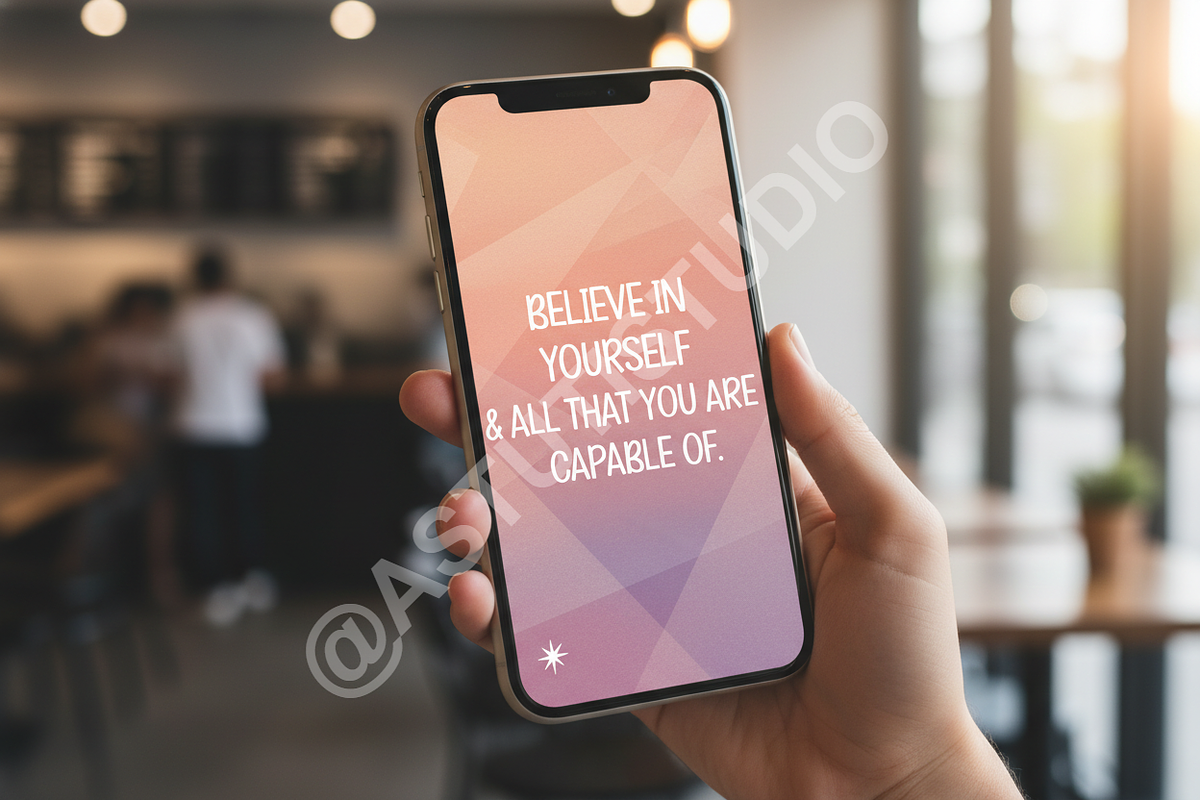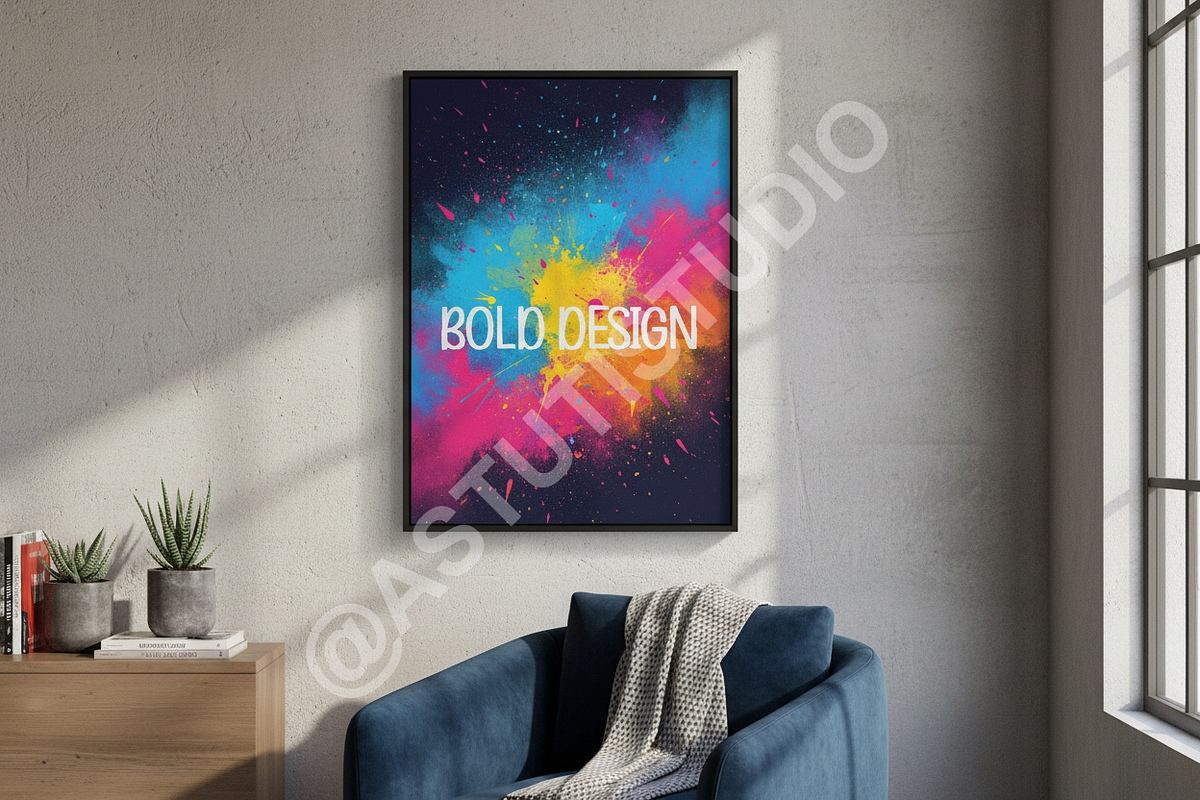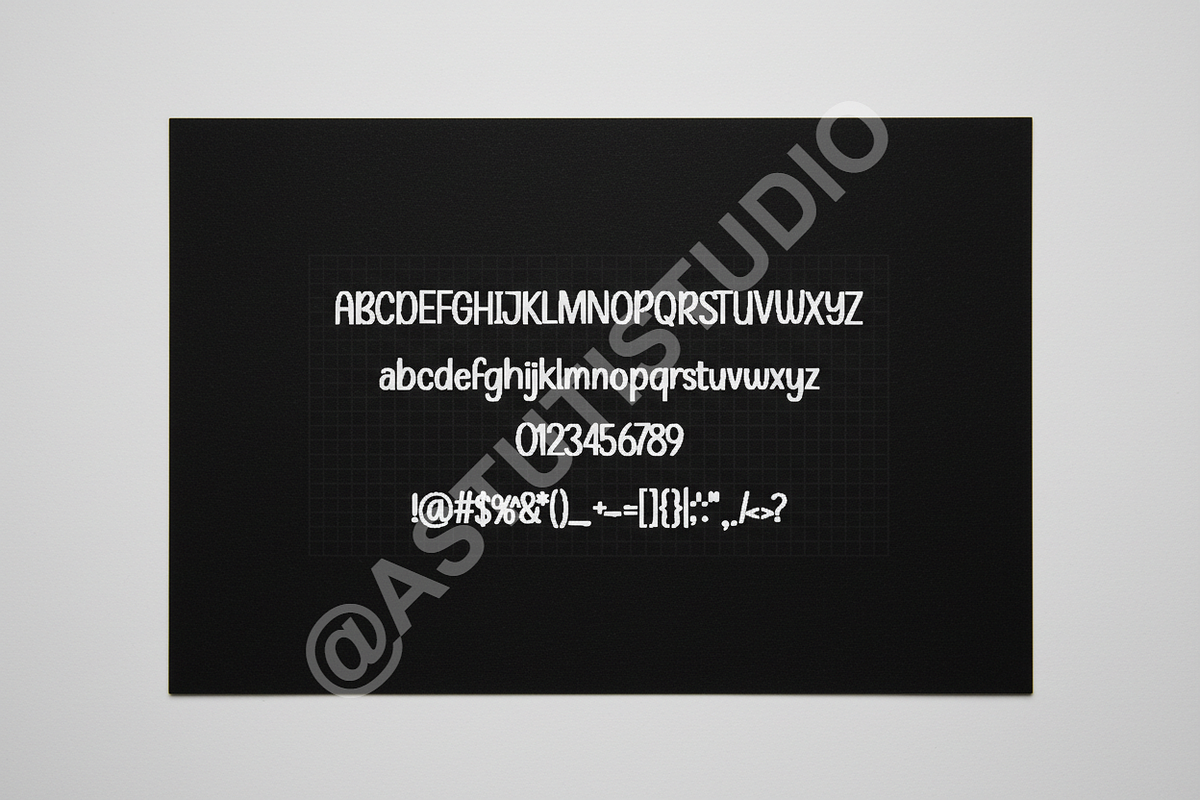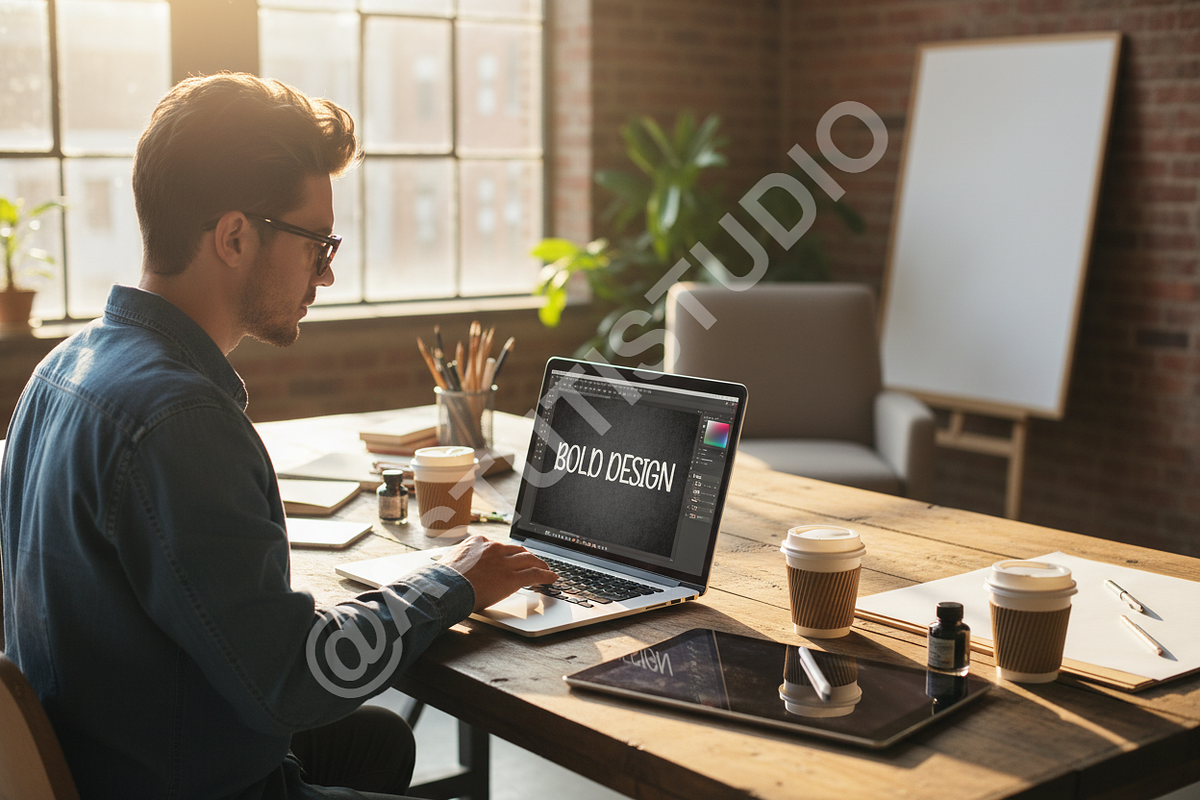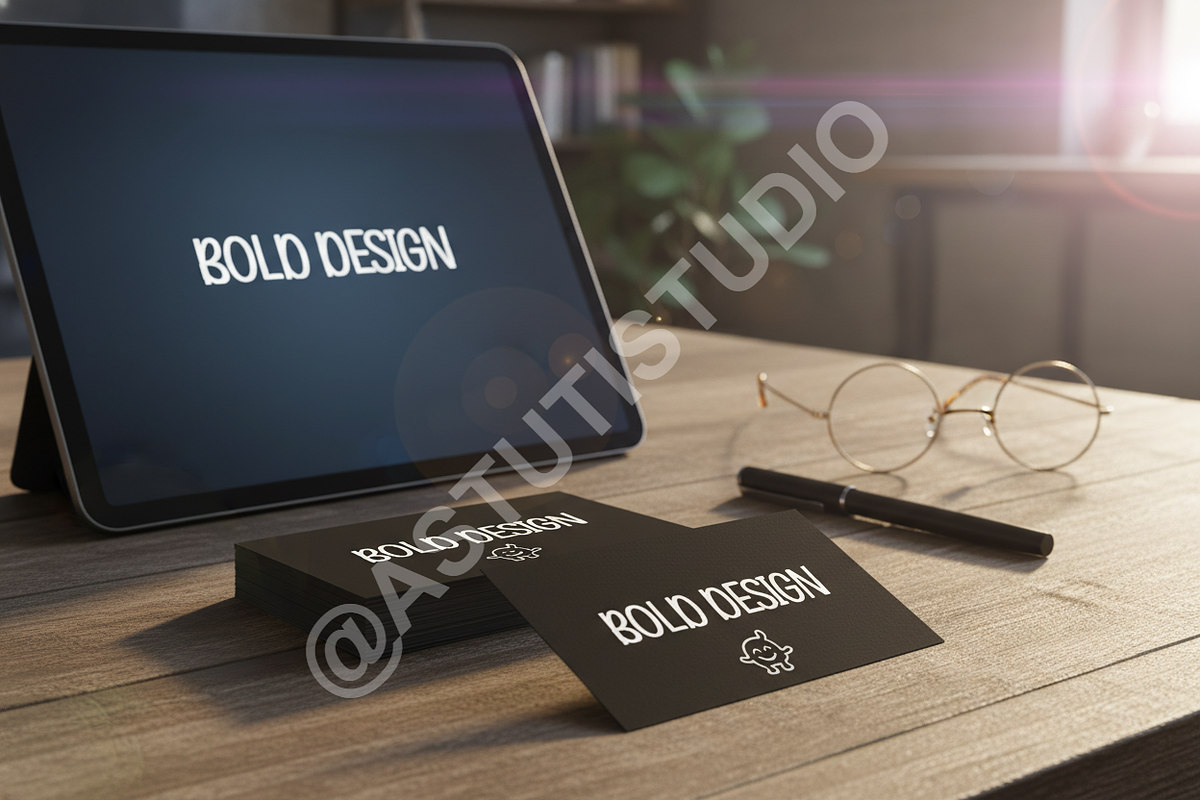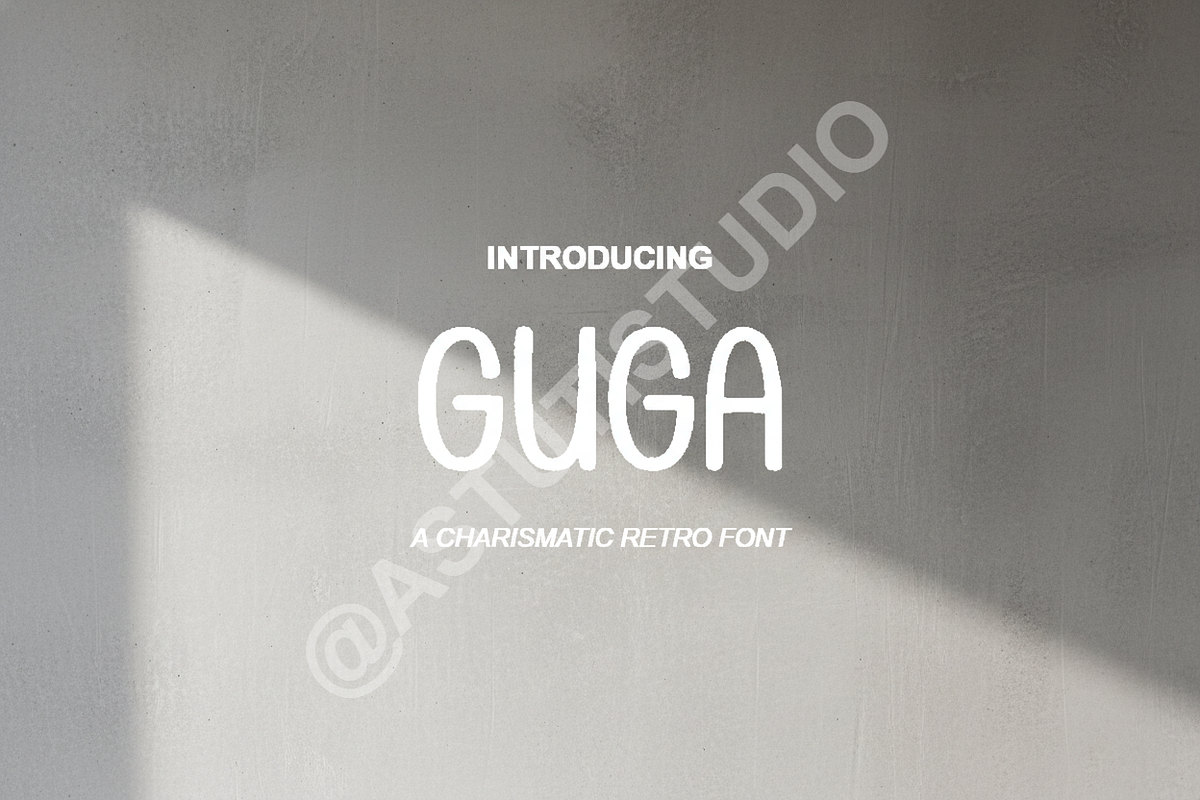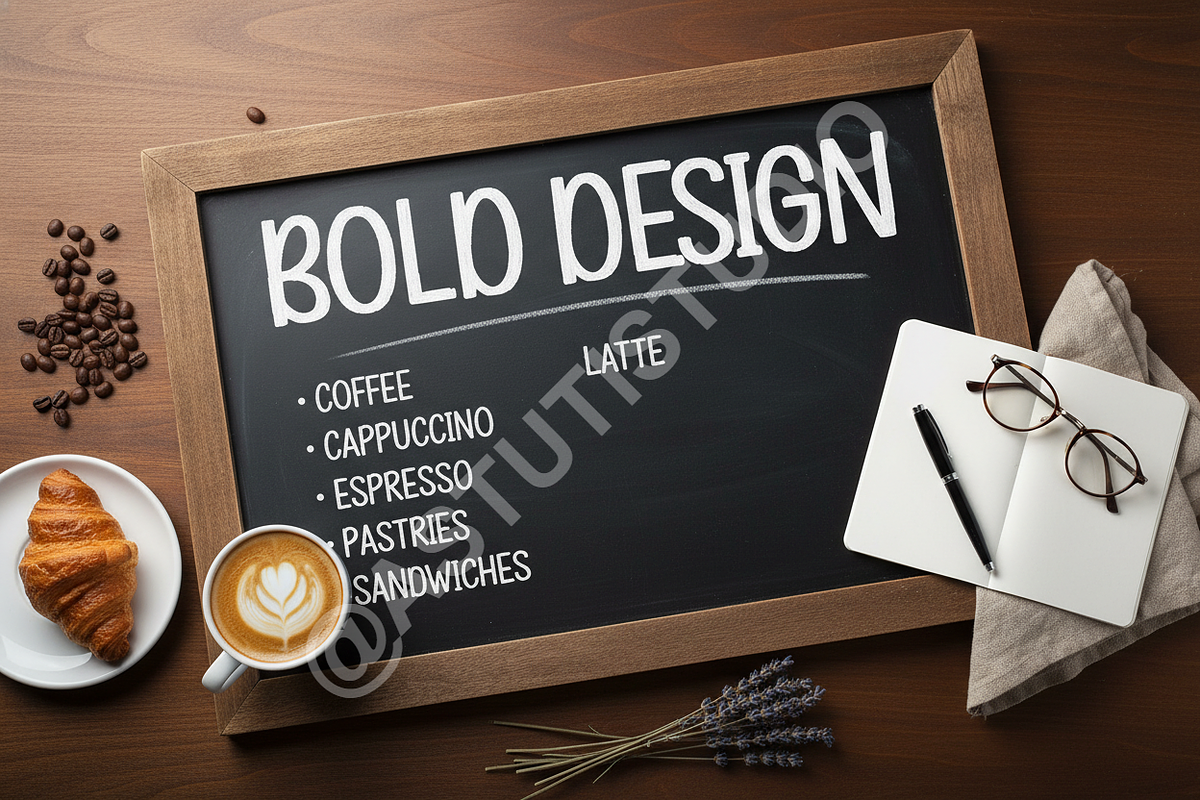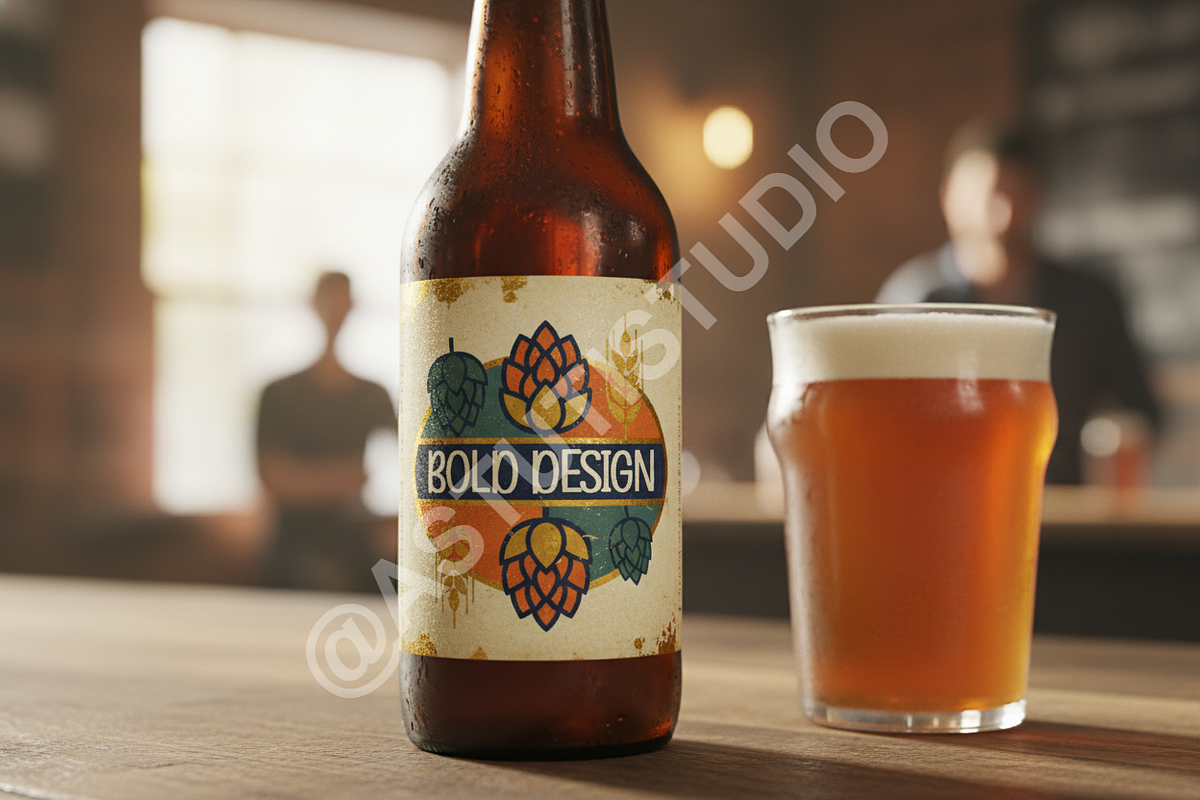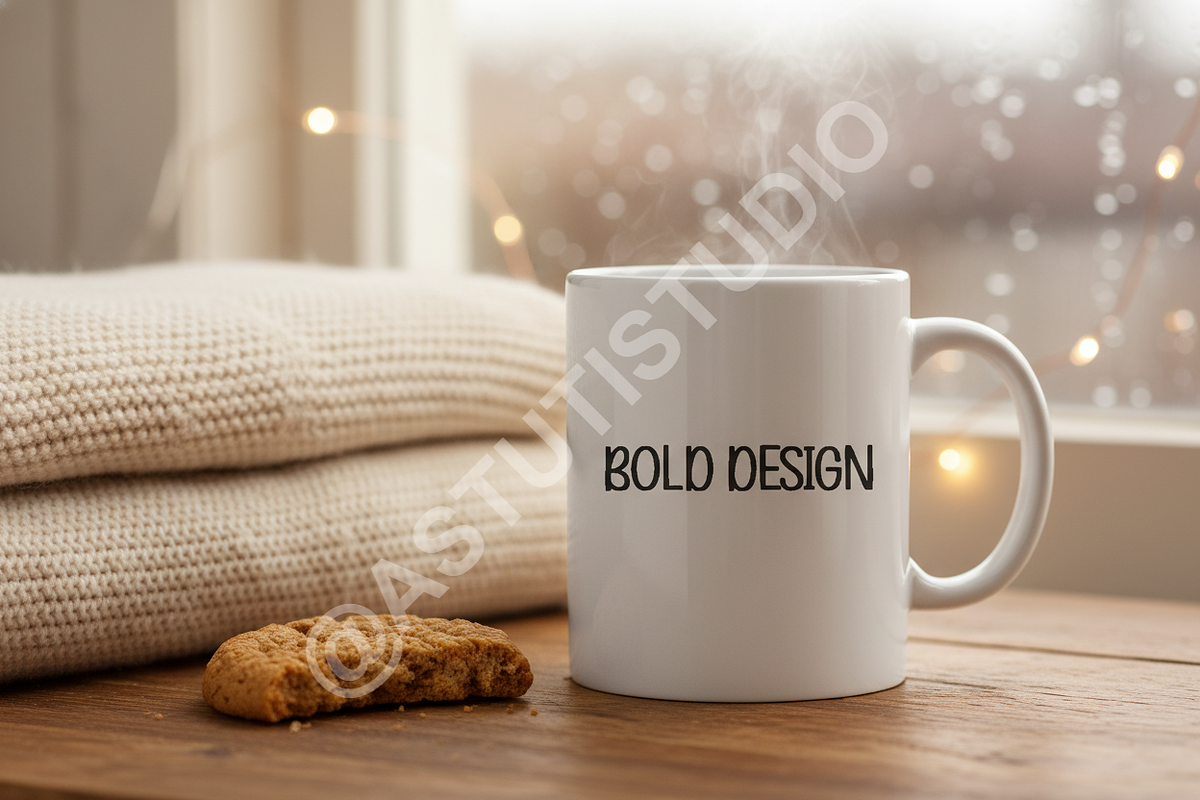
Guga - A Refined Modern Serif Typefa
INTRODUCTION Guga is a premium serif typeface designed for high-end aesthetic projects. Drawing inspiration from modern minimalism and classic editorial layouts, Guga brings an air of effortless luxury to every design. It is the perfect choice for fashion branding, sophisticated social media content, and high-impact editorial headlines.
- Elegant high-contrast strokes
- Clean and legible letterforms
- Extensive multilingual support
- Optimized for both digital and print
- Perfect for luxury branding and editorial design